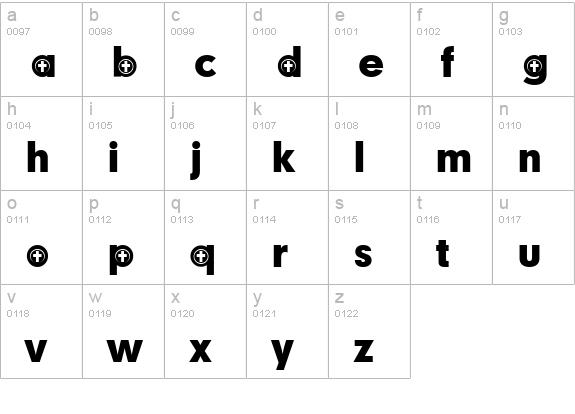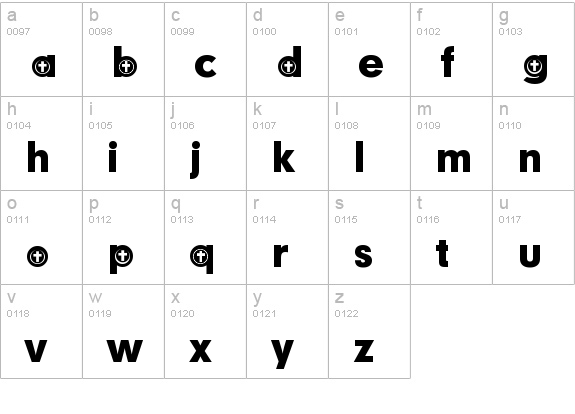
The Christian Participants font is a beautifully crafted typeface designed specifically for those seeking to infuse their projects with a touch of elegance and spirituality. Its graceful curves and intricate details evoke a sense of timeless beauty, making it perfect for a wide range of design applications. This font is ideal for creating invitations, greeting cards, religious publications, and more. Its classic yet modern design is sure to captivate the hearts of your audience and leave a lasting impression. Best of all, the Christian Participants font is freely available to download at FontsMarket.com. So go ahead and add a touch of divine inspiration to your designs with this exquisite typeface today!